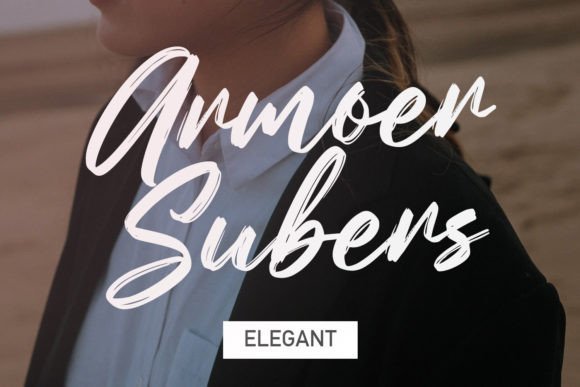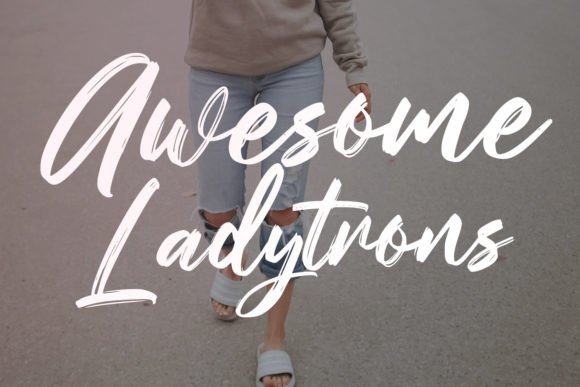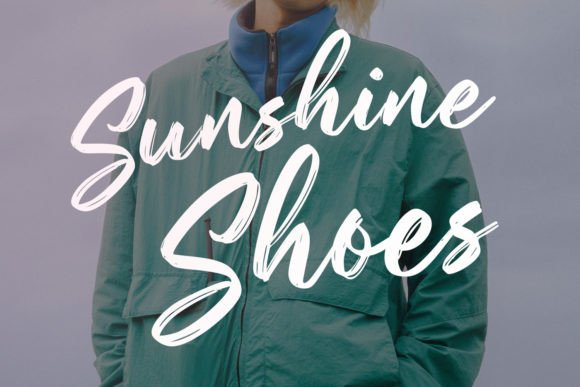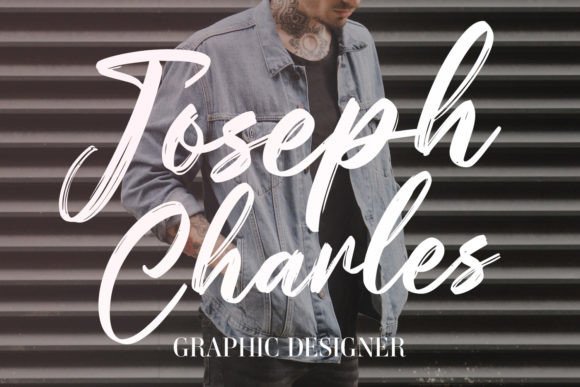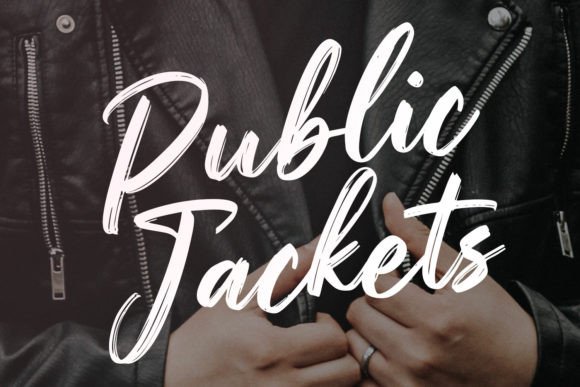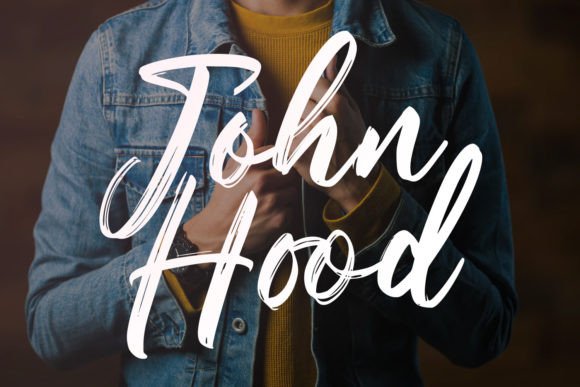
Unleash Your Creativity with the Perfect Brush Script Font
Have you ever stared at a blank page, desperately searching for the perfect font to bring your design to life? We’ve all been there. But what if you could find that elusive font that effortlessly adds a touch of elegance and sophistication to your work?
Meet the Cestoom Allia Font, a modern and casual brush script font designed to make your creative vision shine. This incredibly versatile font is perfect for crafting gorgeous wedding invitations, beautiful stationery art, eye-catching social media posts, and so much more. With Cestoom Allia Font, you’ll be able to express yourself in a unique and captivating way, making it a valuable asset for any designer looking to elevate their work.
Whether you’re a seasoned pro or just starting out, the Cestoom Allia Font is an essential addition to your design toolkit, offering endless possibilities for creativity and self-expression.
Cestoom Allia Font Key Features
- Resolution: Supports high-resolution displays with clear and crisp text rendering.
- Unique Characteristics: Features a unique blend of modern and classic design elements, making it ideal for various design applications.
- Font Style: Available in regular, italic, bold, and bold italic styles for added versatility.
Cestoom Allia Font Review
I recently had the chance to work with the Cestoom Allia Font, and I must say it’s a mixed bag. Here are my thoughts:
- The Cestoom Allia Font has a beautiful, elegant design that’s perfect for creating a sophisticated and high-end look.
- It’s highly legible, making it a great choice for body text and paragraphs.
- The font is well-suited for both digital and print applications, and it’s easily scalable.
- The Cestoom Allia Font is a bit limited in its expressiveness, which can make it feel a bit sterile or generic at times.
- It may not be the best choice for projects that require a lot of personality or whimsy.
- The font’s subtlety can sometimes make it difficult to read at small sizes.
Overall, I’d say the Cestoom Allia Font is a solid choice for projects that require a touch of sophistication and elegance. However, it may not be the best fit for every design project. With its limitations in mind, I’d recommend using it in conjunction with other fonts to add some visual interest and depth.
Common use cases for Cestoom Allia Font include:
– Logo design: Cestoom Allia Font is ideal for creating unique and eye-catching logos.
– Branding: Use the font consistently across your marketing materials to build brand recognition.
– Digital products: The font is perfect for creating digital products such as ebooks, templates, and graphics.
Alternatives to Cestoom Allia Font
Playfair Display is a luxurious, high-end serif font ideal for creating elegant and sophisticated designs. It is perfect for use in high-end branding, advertising, and editorial content. Compared to Cestoom Allia Font, Playfair Display has a more refined and classic look, making it suitable for formal and professional applications.
Great Vibes is a beautiful, elegant script font that works well for creating a sense of luxury and sophistication. It is ideal for use in branding, packaging, and advertising, particularly for fashion and beauty-related projects. Compared to Cestoom Allia Font, Great Vibes has a more flowing and handwritten feel, making it suitable for applications where a touch of personality is needed.
Merriweather is a classic, elegant serif font that is perfect for creating a sense of sophistication and refinement. It is ideal for use in publishing, branding, and advertising, particularly for educational and cultural institutions. Compared to Cestoom Allia Font, Merriweather has a more traditional and timeless look, making it suitable for applications where a sense of history and tradition is needed.